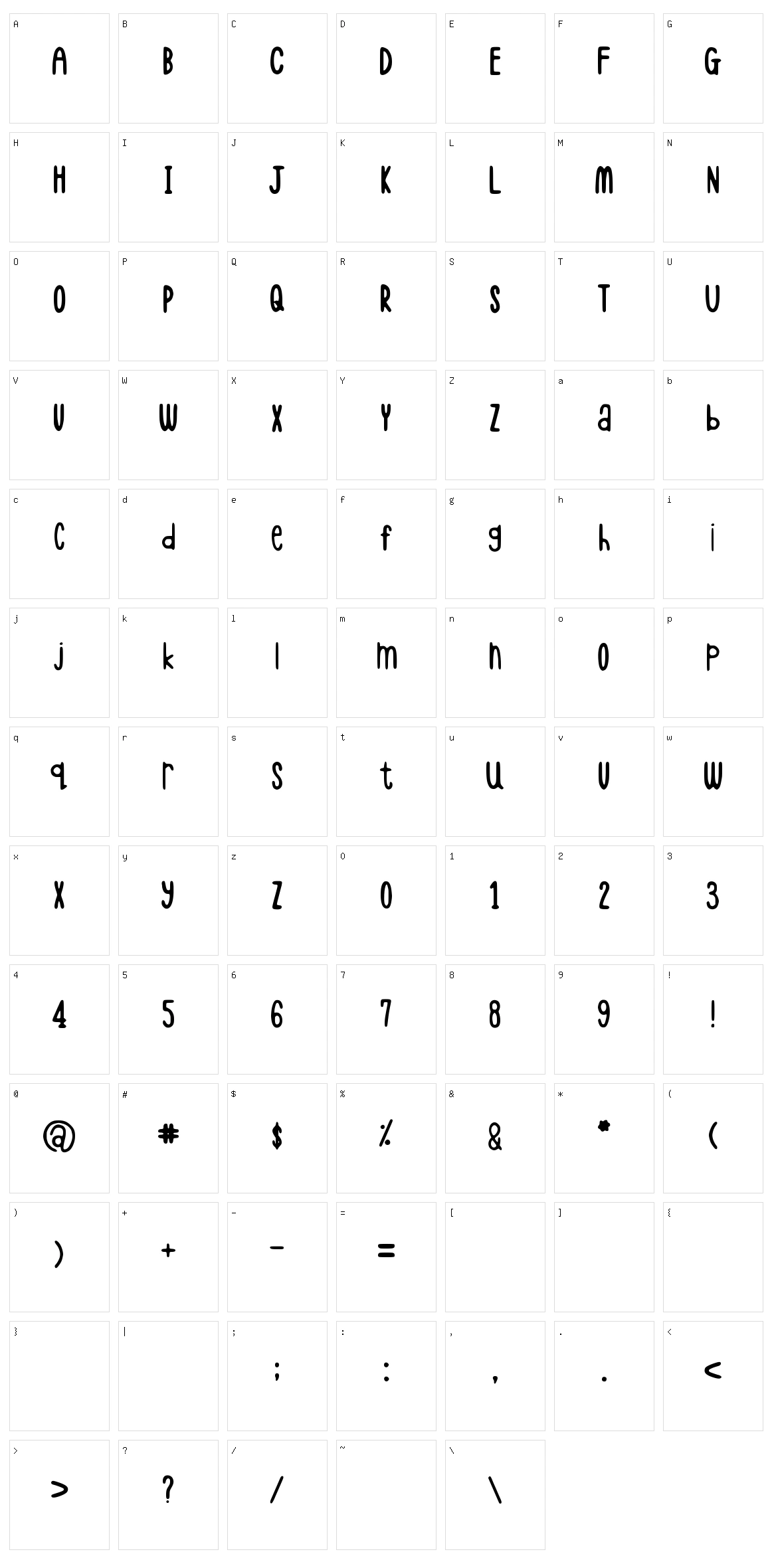
The free font Hello Giraffe is carefully designed by Yicong Faith, showcasing a thoughtful balance of creativity and usability and falls under the Script font style. When you download the ZIP file, it contains only 10.71 KB of font files, making it lightweight and quick to download. Please review the license details below to understand permitted usage and distribution rights. If license information is not available, we recommend using this font for personal projects only or contacting the author directly for commercial usage permissions.